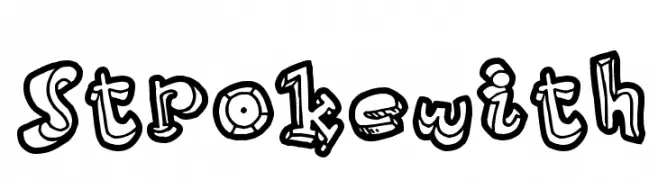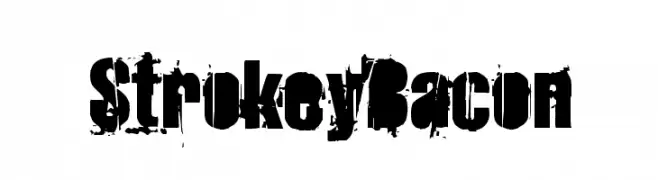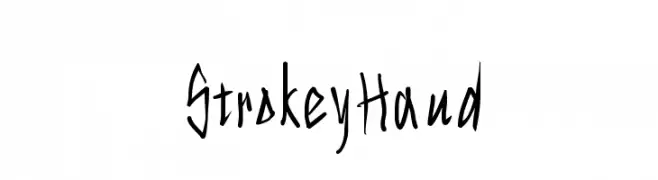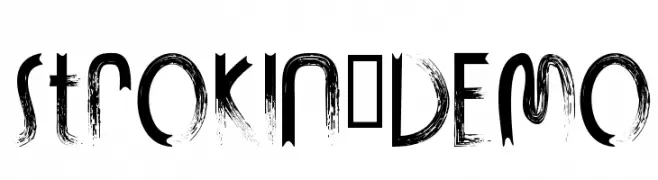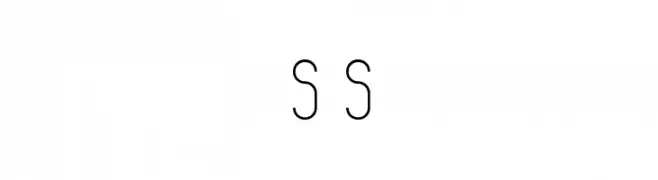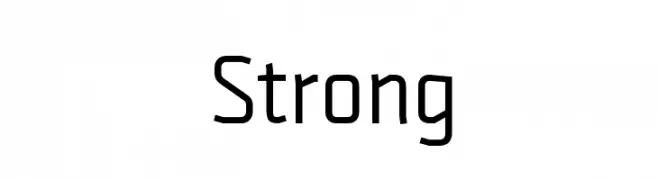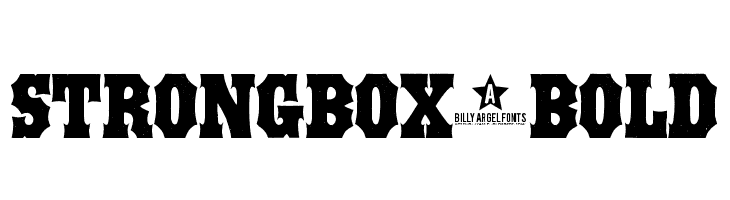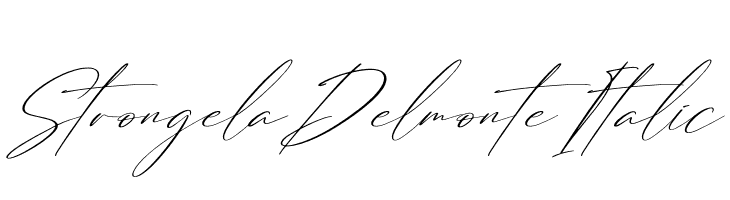
A bold, energetic handwritten font with expressive strokes and a playful aesthetic.
A whimsical font where each character is creatively depicted as a bird.
A bold, playful font with a 3D effect and hand-drawn style.
A dynamic, expressive handwritten font with irregular strokes and artistic flair.
A bold, distressed brushstroke font with a dynamic and edgy style.
A bold, flame-inspired font with dramatic, pointed serifs and intense visual impact.
A sleek, modern font with elongated, narrow characters and a minimalist design.
A modern, geometric sans-serif font with consistent stroke width and balanced proportions.
A playful and bold font with rounded edges and a whimsical style.